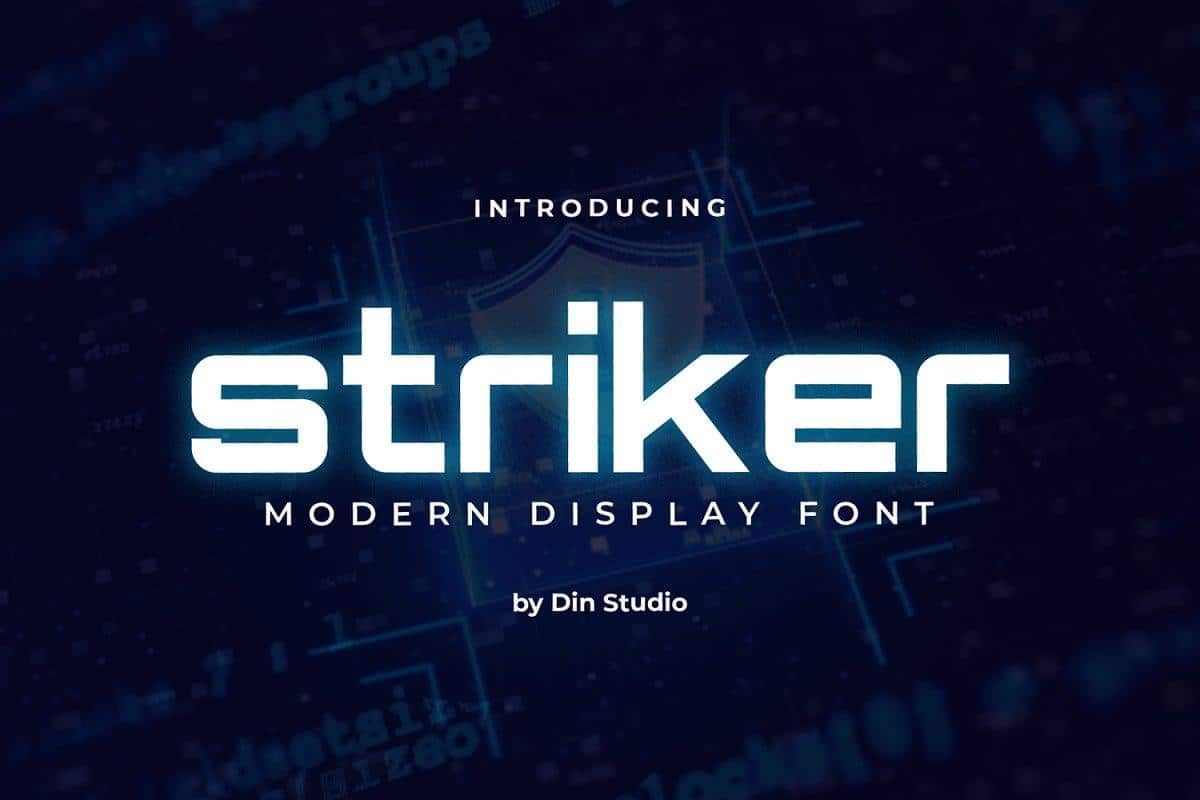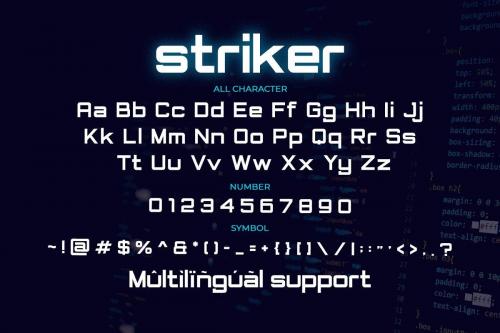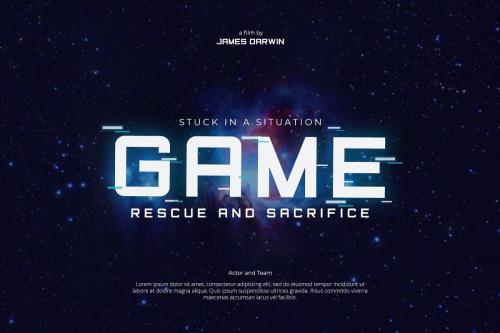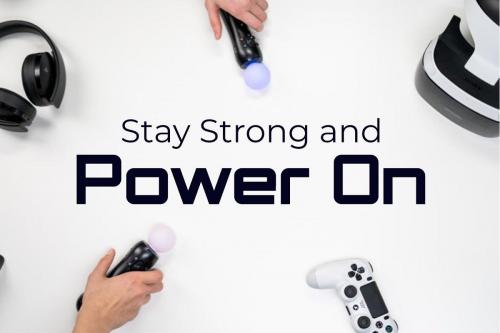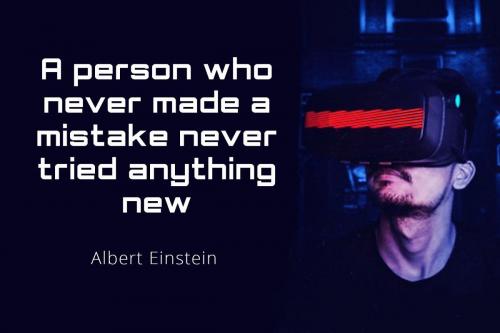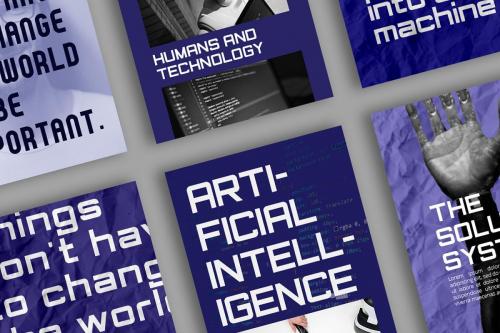
Striker Modern Sans Display Font
Striker Modern Display Font is a sans display font. Made for any professional project branding. It is the best for logos, branding and quotes. Every letter has a unique and beautiful touch.